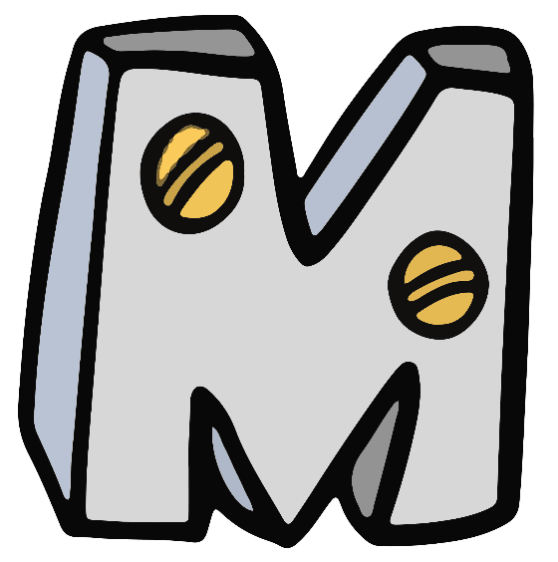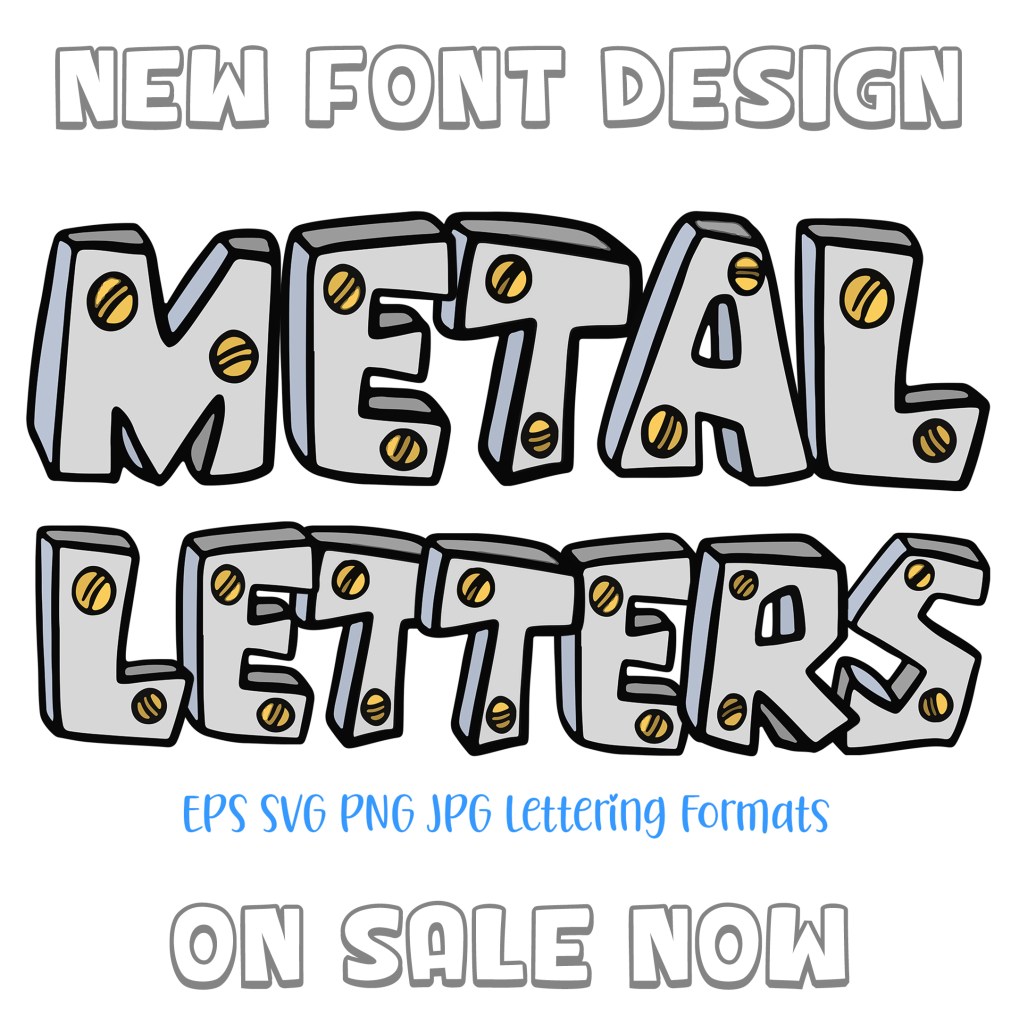
Heavy Metal! New Font Lettering Design
Metal Steel Lettering Font ABC SVG PNG Cartoon Type by Squeeb Creative
Heavy metal! Another fun 3D font created to look like metal door signs. This was a fun one to make. I used to work with my dad as an engineer, so I can smell these letters
Metal Steel Lettering Font ABC SVG PNG Cartoon Type by Squeeb Creative